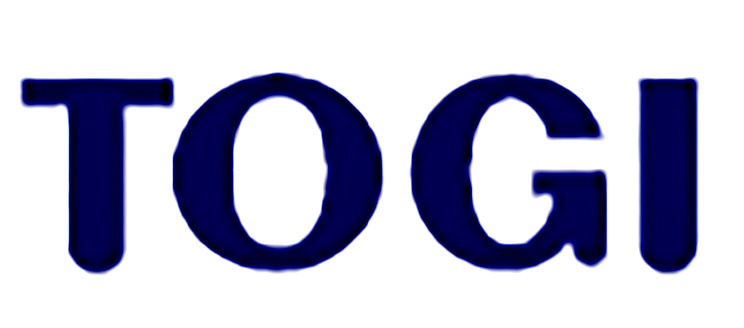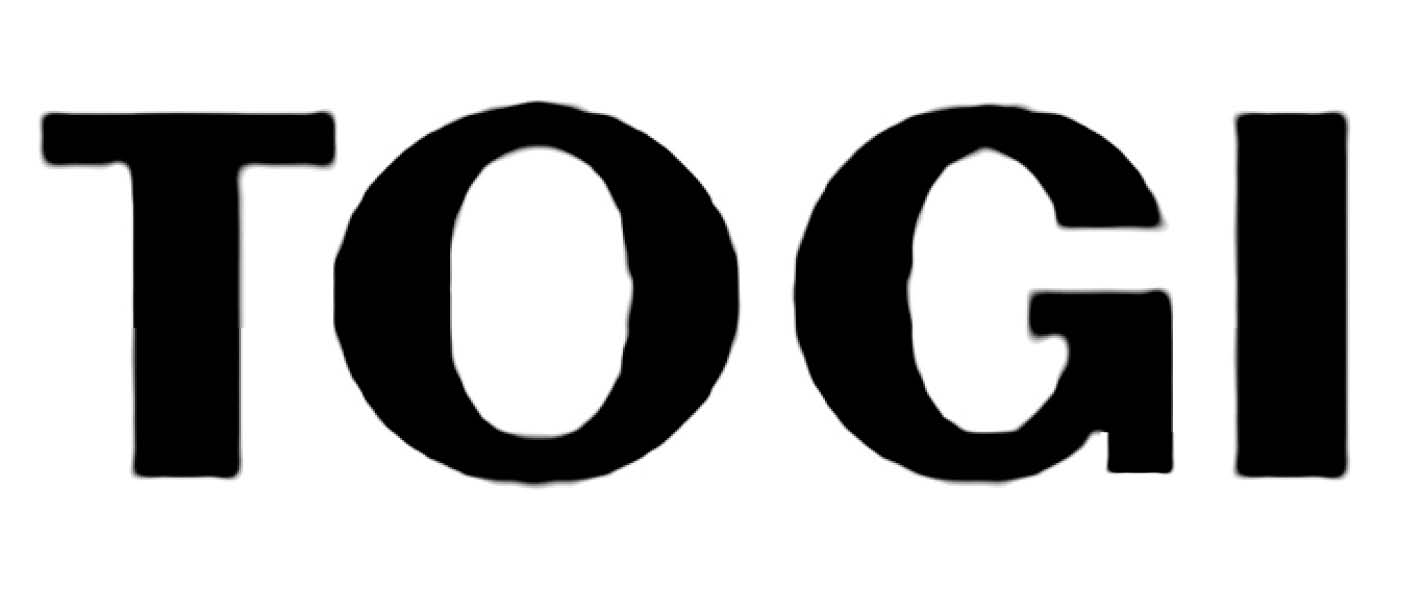
Does anyone recognise this sans serif with rounded bottoms? ![]()
Quite unusual, might be a custom job. Any fonts with a similar feel would be appreciated too.
Sorry about the quality. The sample I had was tiny.
Hmmm this is a toughie. My gut is telling me that someone frogged around with a font.
Maybe someone else will have more insight.
Umm, Trojan? Just kidding. No idea what that is.
Dunno … looks like it could be a combo of fonts with the tail of the G being hacked
P22 Akebono
OPTISwiss-NoFour
…or some other.
I thought of P22 Akebono too because of the T and the I … but the G was just too different. In the example the G and O are identical but for the cut out and “arrow” bit. I almost think someone took a straight edged font and lopped off a couple corners ![]()
There are a couple other fonts out there with a similar T and I but again the G looks nothing like the example.
It’s a stumper ![]()
After remarks about an amended font with added round bottoms to the letters, I squared off the letters and did a search.
Looks a lot like Moriston Bold which is available free for personal use here:
This font little bit similar with Heisei Maru Gothic Std W8 Bold but i’m not sure what exactly is it.